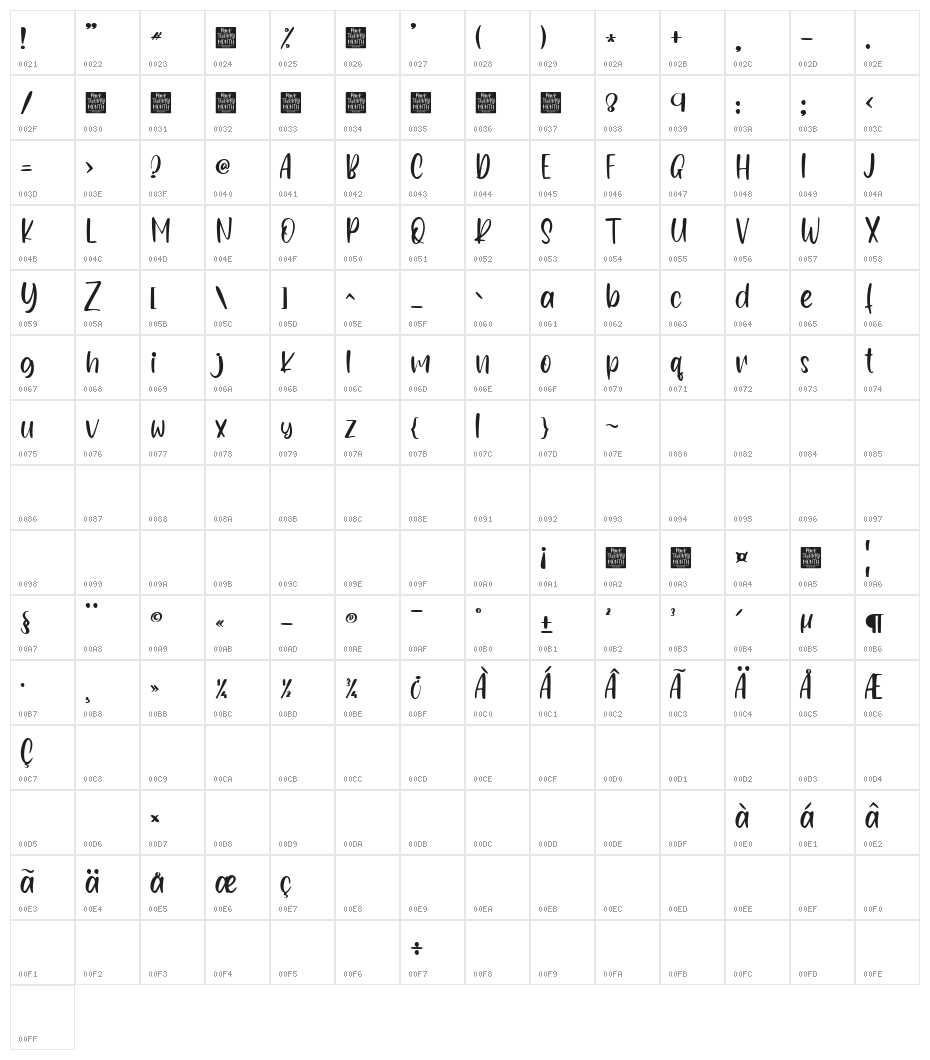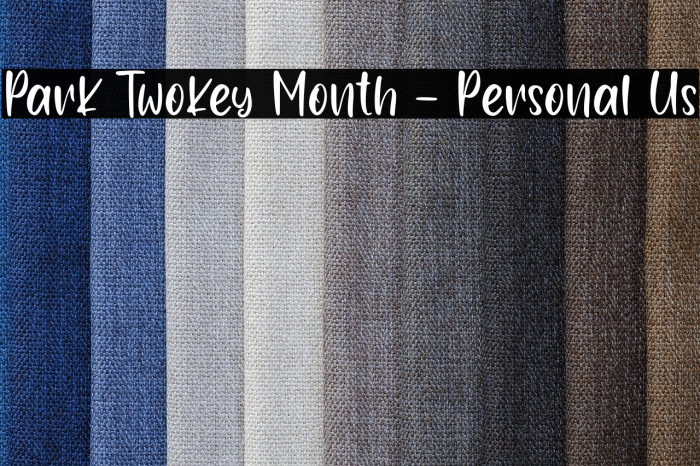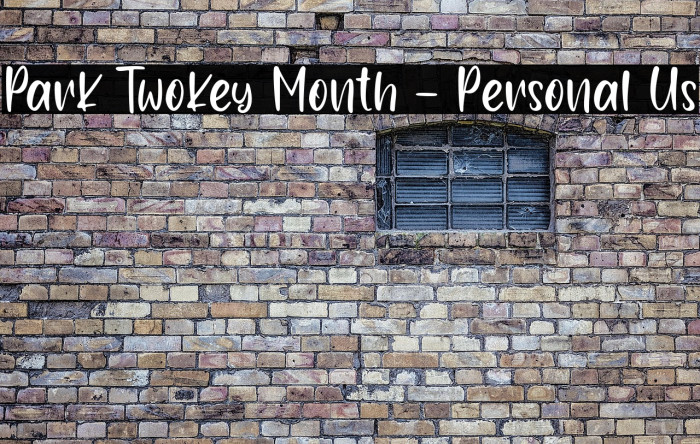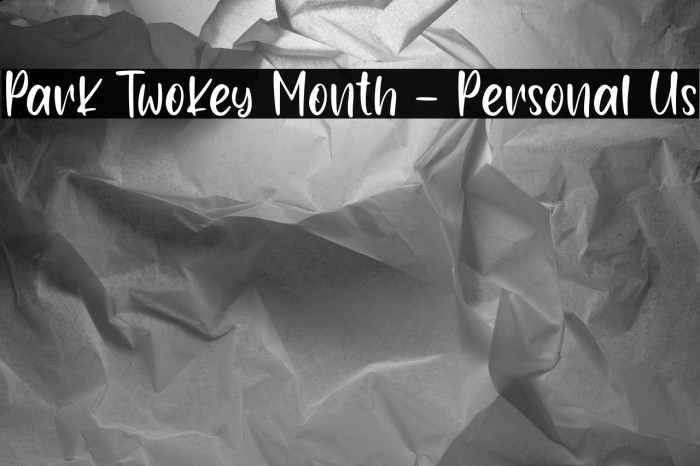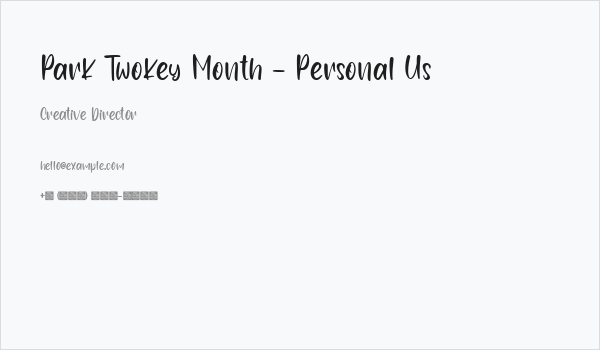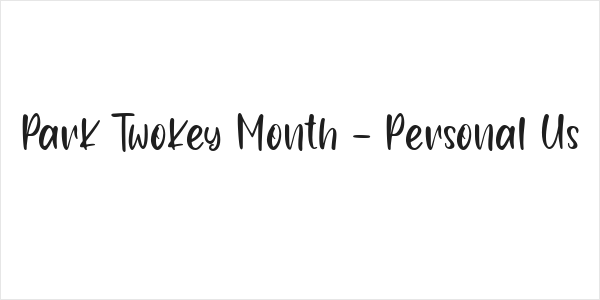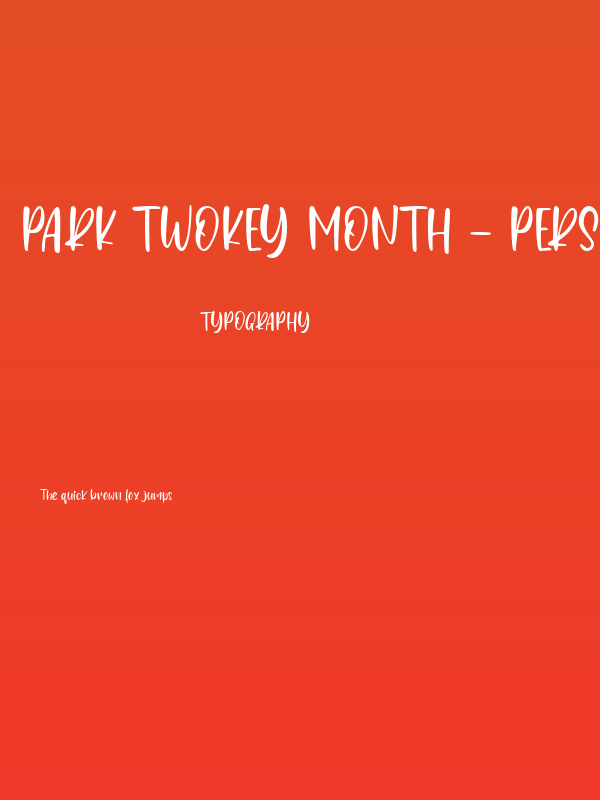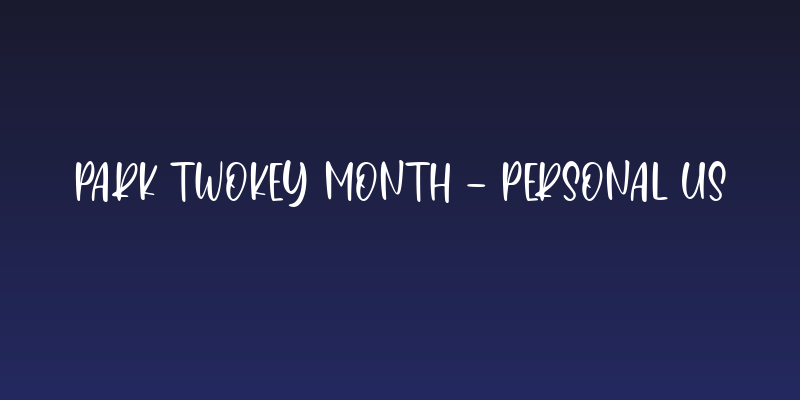
Park Twokey Month - Personal Us Font
Park Twokey Month - Personal Us Description
This font features a playful and energetic handwritten style, characterized by its bold and fluid strokes. The uppercase letters are tall and slightly narrow, with a consistent stroke width that gives them a strong presence. The lowercase letters maintain a similar style, with some characters featuring unique loops and curves that add to the font's whimsical nature. The numbers are bold and rounded, complementing the overall style. Special characters are designed to match the playful aesthetic, making this font ideal for creative and informal projects.
Overall StylePlayful